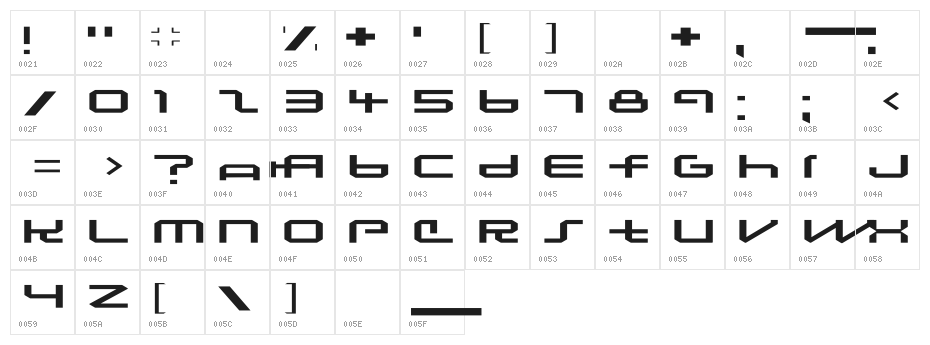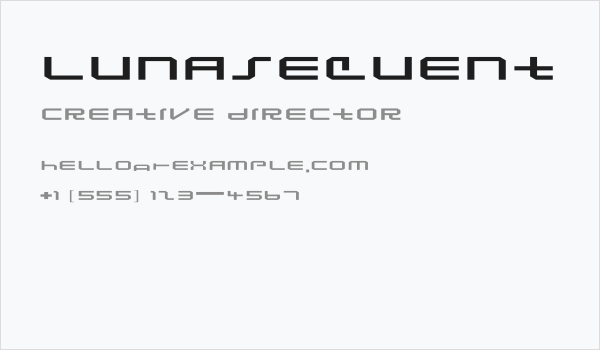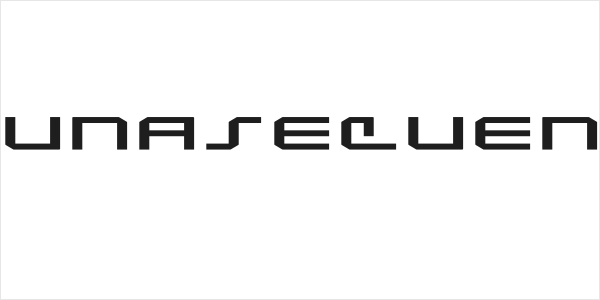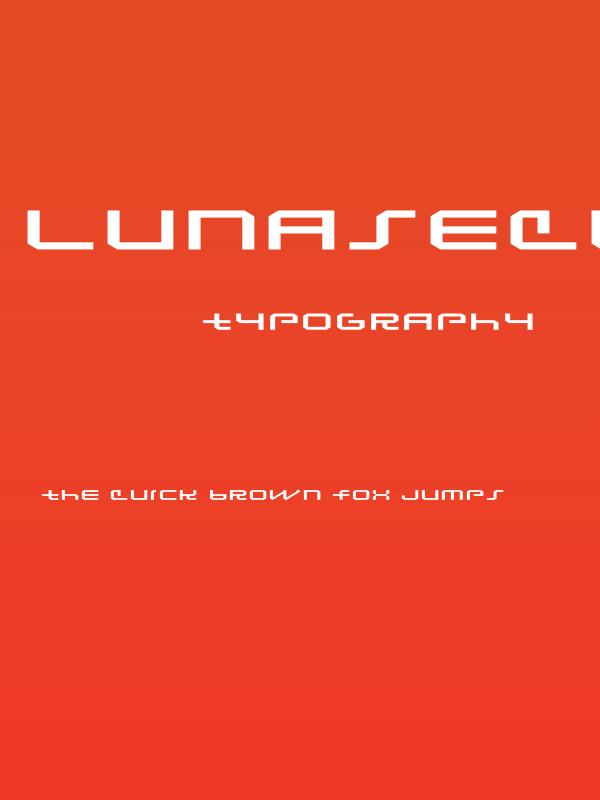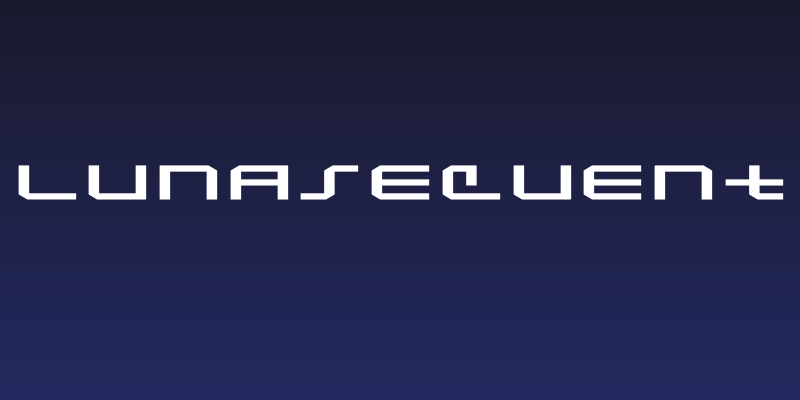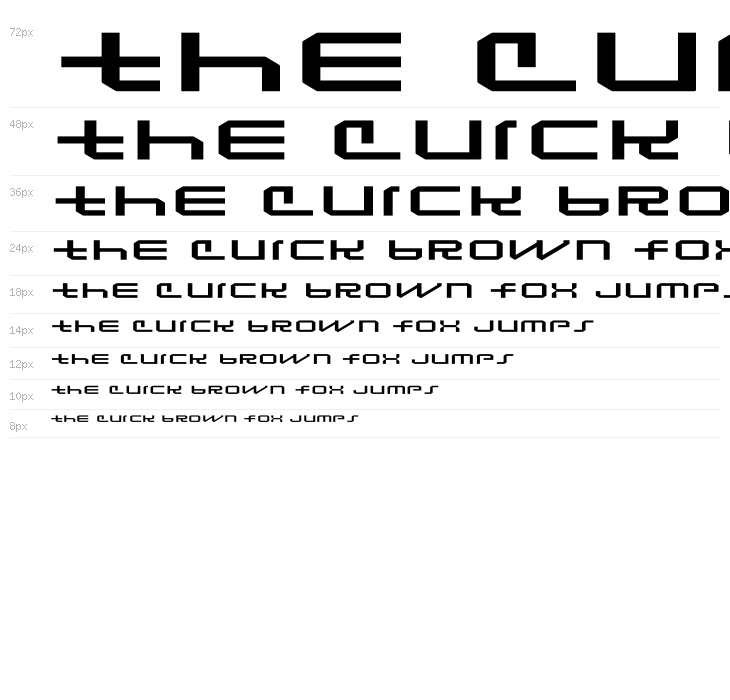
Lunasequent Font
Lunasequent Description
This font features a futuristic and geometric design, characterized by its angular and modular letterforms. The uppercase and lowercase letters share a consistent style, with sharp edges and a uniform stroke width that conveys a sense of modernity and precision. The numerals are similarly styled, maintaining the geometric theme with clear, distinct shapes. Special characters are designed to complement the overall aesthetic, adding to the font's versatility. The font's clean lines and structured appearance make it suitable for projects that require a contemporary and tech-inspired look.
| Use Case | Headlines, Logos, Digital interfaces |
| Proposed Projects | Ideal for technology branding, sci-fi themed designs, digital interfaces, and modern advertising. |